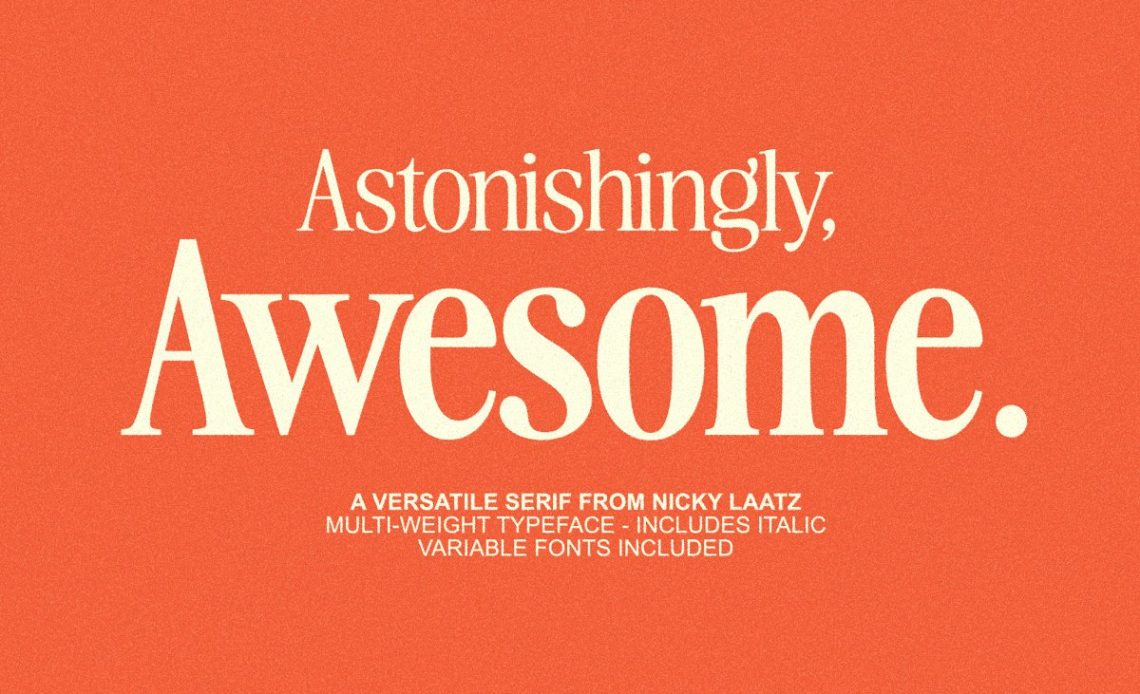
Introducing The Awesome Serif Family, a breathtaking collection of 32 multi-weight and multi-height typefaces created by the talented Nicky Laatz. This stylish yet retro font family includes both Regular and Italic styles, making it the perfect choice for a variety of projects.
But that's not all - two handy variable fonts are included for those who have software that can read them. With so many options at your fingertips, the possibilities are endless.
What sets Awesome Serif apart from other fonts is its incredible versatility. It can easily morph into delicate and sophisticated designs, or bold and edgy retro ones. The choice is yours - take your pick!
This dreamy type family is perfect for those looking to elevate their design game. Its unique blend of classic and contemporary styles will surely captivate your audience.